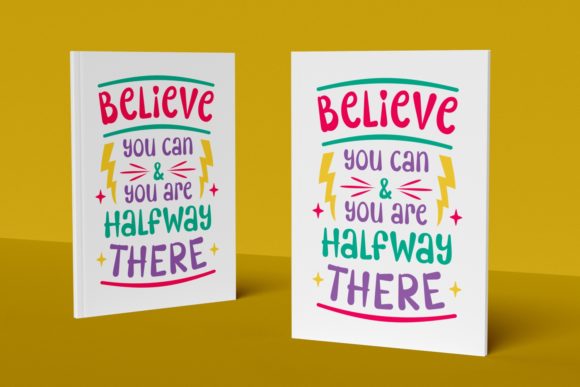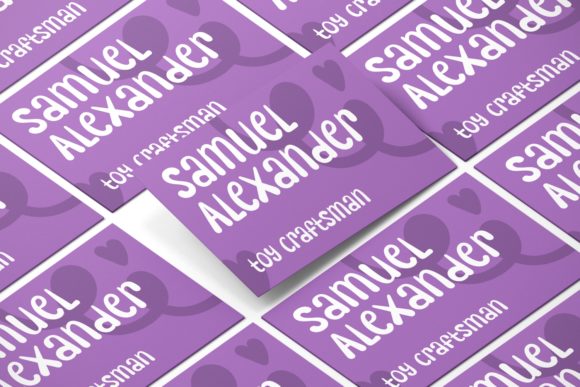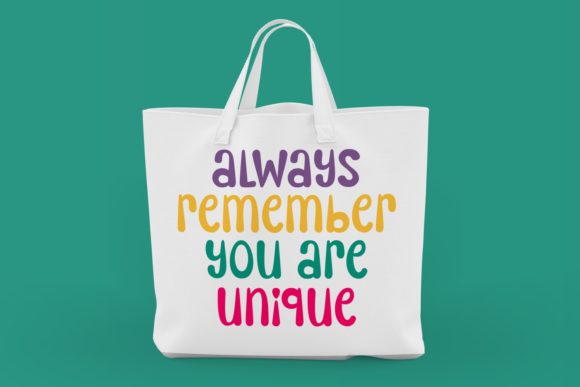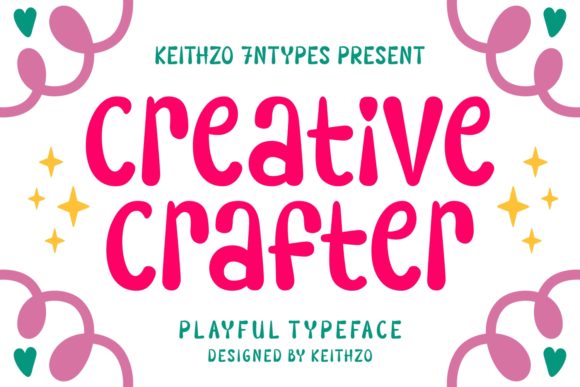
Introducing Creative Crafter Font: The Perfect Choice for Kids’ Activities and School Projects
Are you a designer, crafter, or educator looking for a font that embodies playfulness and authenticity? Look no further than Creative Crafter Font! This friendly and neat display font is specifically designed for kids’ activities and school projects, making it an ideal choice for anyone seeking a fun and engaging typography solution.
What Makes Creative Crafter Font So Special?
Creative Crafter Font is more than just a font – it’s a tool that can help bring your creative projects to life. With its unique blend of playfulness and sophistication, this font is perfect for a wide range of applications, from kids’ worksheets and activity sheets to school posters and craft projects.
One of the key features that sets Creative Crafter Font apart is its friendly and approachable design. The font’s rounded edges and smooth lines give it a warm and inviting feel, making it perfect for projects aimed at kids and young learners.
The Benefits of Using Creative Crafter Font
So why choose Creative Crafter Font for your next project? Here are just a few benefits of using this versatile and engaging font:
- Playful and engaging: Creative Crafter Font is designed to capture kids’ attention and inspire their creativity. Its playful design makes it perfect for projects aimed at young learners.
- Easy to read: Despite its playful design, Creative Crafter Font is surprisingly easy to read, making it perfect for projects that require a clear and legible font.
- Versatile: Creative Crafter Font can be used for a wide range of projects, from kids’ worksheets and activity sheets to school posters and craft projects.
- Authentic: This font’s unique design gives it an authentic feel that’s perfect for projects that require a personal touch.
How to Use Creative Crafter Font in Your Projects
Using Creative Crafter Font in your projects is easy! Here are a few tips to get you started:
- Pair it with other fonts: Creative Crafter Font pairs well with a wide range of fonts, from bold and playful fonts to more traditional and serif fonts.
- Experiment with colors: This font looks great in a wide range of colors, from bright and bold hues to more muted and pastel shades.
- Use it for headings and titles: Creative Crafter Font is perfect for headings and titles, where its playful design can really shine.
Examples of Creative Crafter Font in Action
So what does Creative Crafter Font look like in action? Here are a few examples of how this font can be used in different projects:
- Kids’ worksheets: Use Creative Crafter Font to create engaging and interactive worksheets for kids, complete with fun illustrations and activities.
- School posters: This font is perfect for creating eye-catching posters for school projects, from science fair posters to book displays.
- Craft projects: Use Creative Crafter Font to add a personal touch to craft projects, from handmade cards to DIY decorations.
In conclusion, Creative Crafter Font is a versatile and engaging font that’s perfect for kids’ activities and school projects. With its playful design, easy readability, and authentic feel, this font is sure to inspire creativity and bring your projects to life. So why not give it a try today and see the difference it can make in your next project?
Whether you’re a designer, crafter, or educator, Creative Crafter Font is an excellent choice for anyone seeking a fun and engaging typography solution. So go ahead, get creative, and see what amazing projects you can come up with using this fantastic font!